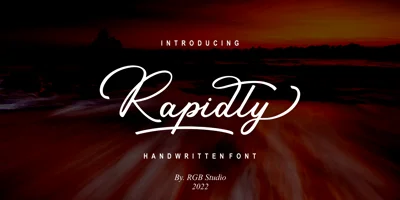
Rapidly Font
Rapidly Font is ideal for express delivery service branding, fast-food restaurant signage, urgent news broadcast graphics, speed training programs, quick service business logos, and time-critical communication materials.
Rapidly Font is exciting because it captures the dynamic momentum and urgent efficiency of high-speed operations, delivering a fast-paced typeface that embodies velocity, immediate action, and the competitive advantage of rapid response times.
The Rapidly Font family includes speed variations: Rapidly Light, Rapidly Regular, Rapidly Bold, motion-inspired alternates, and decorative elements that enhance the font's fast-moving and urgency-driven character.
Accelerate your message with Rapidly Font, a dynamically crafted typeface that brings speed efficiency and urgent momentum to your most time-sensitive design projects. This fast-moving font excels in creating memorable branding for courier services, emergency response organizations, rapid prototyping companies, and businesses that compete on speed and immediate service delivery. The dynamically designed letterforms feature streamlined construction and velocity-inspired details that communicate speed, efficiency, and time-critical performance while ensuring maximum readability across all fast-paced and urgent applications. Perfect for express shipping materials, breaking news graphics, speed competition promotions, and urgent service announcements that need to convey immediate action and rapid response capabilities, this font connects with customers who value speed and efficiency in their service providers. Each character moves with urgent precision, making every time-critical message feel like a swift response that demonstrates competitive advantage through superior speed and efficiency. Rapidly Font transforms urgent communications into powerful declarations that establish authority in competitive markets where speed, efficiency, and rapid response times determine customer satisfaction and business success in our fast-paced modern economy.